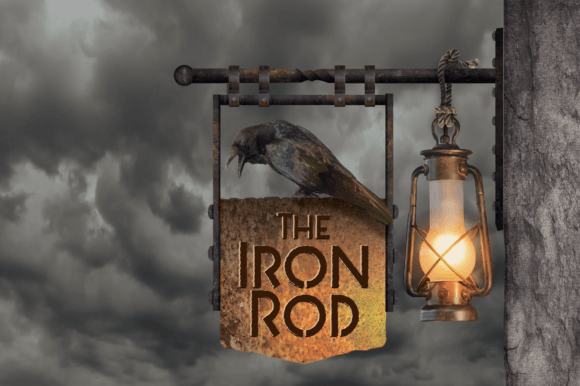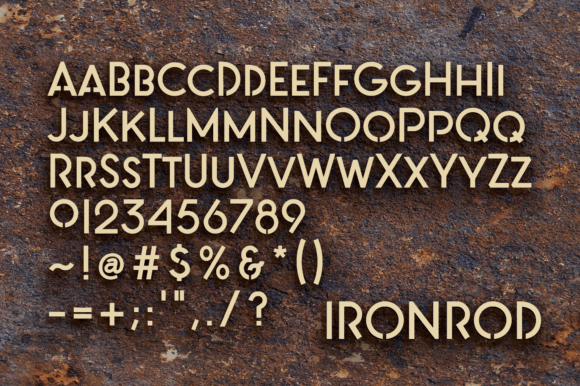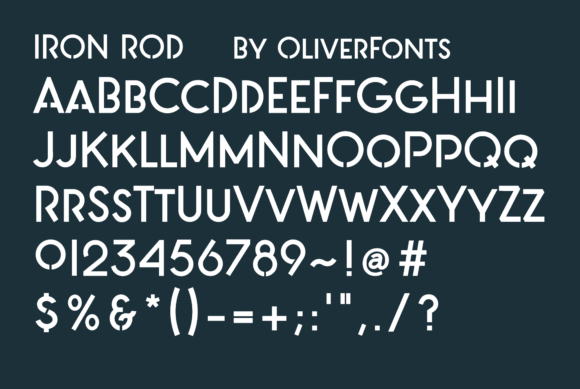
Ironrod Font
IronRod – this sans serif font, carefully crafted with a strong stencil and block style, with art deco influences, offers a bold, dynamic aesthetic perfect for any design requiring a robust, commanding presence.